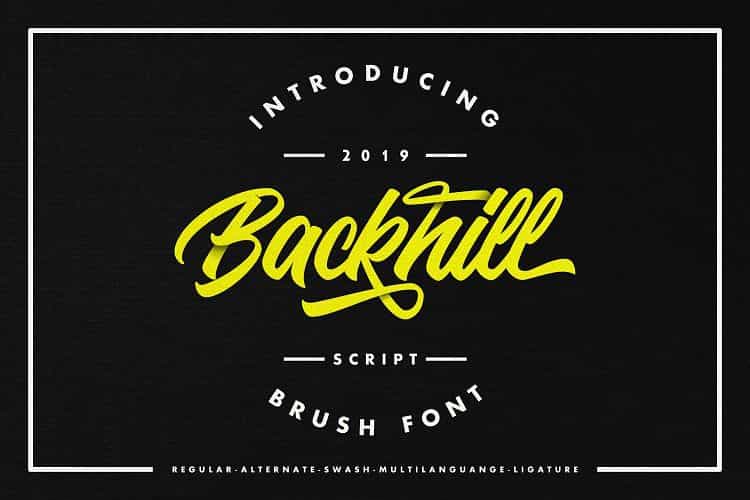
Introducing Backhill script font. Thunder Font published by Inspiratype on May 11, 2017. Backhill Bold Script Font is a typeface of script made by hand approach, inspired of old style posters.